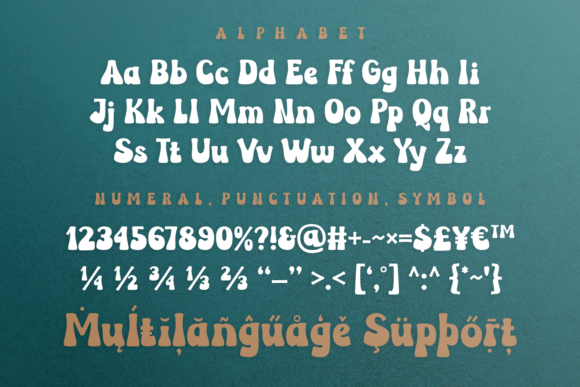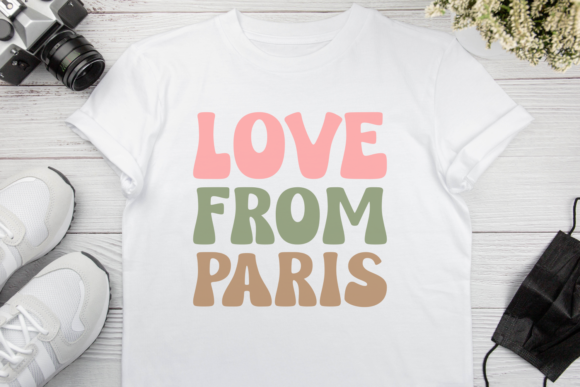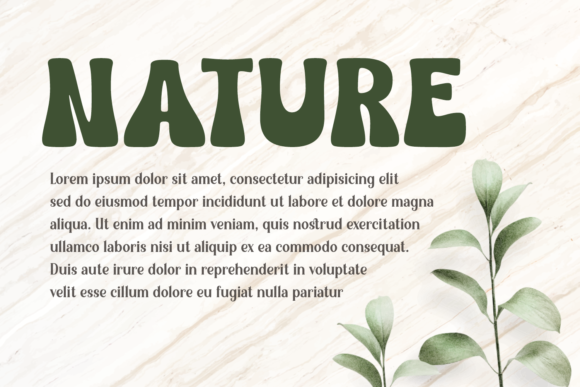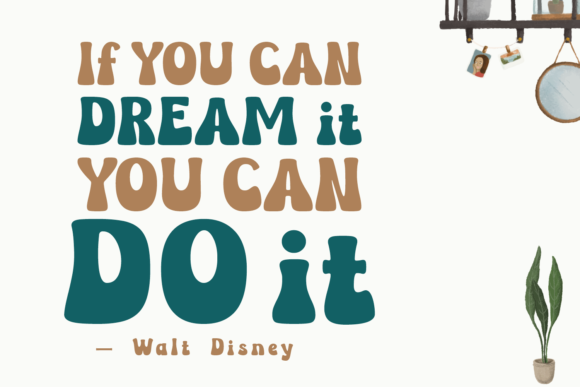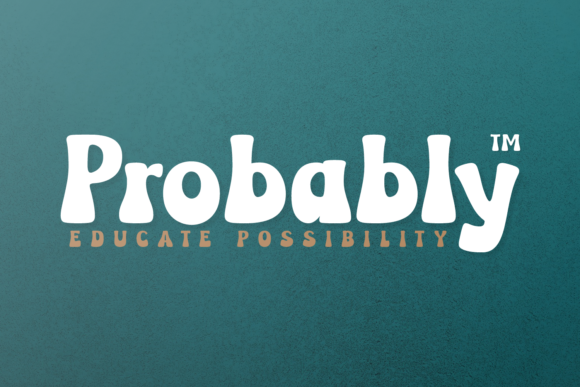
The Groovy Charm of Grace Day Font: A Designer’s Delight
I’ll never forget the time I was working on a project for a trendy boutique client, and I just couldn’t find the right font to capture their laid-back, bohemian vibe. I scoured the internet, tried out countless fonts, but nothing seemed quite right. That was until I stumbled upon Grace Day Font. It was like a ray of sunshine – instantly, I knew I’d found the perfect fit. If you’re a designer, crafter, or creative hobbyist looking for a cool and groovy display font, you’re in luck because today I’m excited to share my thoughts on this fantastic font.
An Honest Review of Grace Day Font
- ✨ Unique and quirky style that’s perfect for making a statement
- ✅ Highly versatile and adaptable to various design projects
- 💥 Excellent for headlines, titles, and short text passages
- 🎨 Beautifully crafted with attention to detail and a clear focus on aesthetics
While Grace Day Font is an amazing addition to any font library, there are a few things to keep in mind:
- 🤔 May not be the best choice for body text or long passages due to its display-focused design
- ⚠️ Some characters may not work well at very small font sizes
A Practical Guide to Using Grace Day Font
One of the best things about Grace Day Font is its support for OpenType features, glyphs, and stylistic alternates. These features allow you to customize your text and add a unique touch to your design. Some common features you might find in Grace Day Font include:
- Ligatures: combinations of letters that are replaced with a single glyph
- Swashes: decorative flourishes that can add a touch of elegance to your text
- Stylistic sets: alternative glyphs that can be used to create a different look or feel
The Backstory of Grace Day Font
Legend has it that the designer behind Grace Day Font was inspired by the carefree spirit of the 1960s. With a passion for typography and a love for vintage aesthetics, they set out to create a font that would capture the essence of a bygone era. The result is a font that’s equal parts groovy and sophisticated – perfect for designers looking to add a touch of whimsy to their work.
Q: What type of projects is Grace Day Font best suited for?
A: Grace Day Font is perfect for projects that require a bold, eye-catching font, such as posters, flyers, brochures, and social media graphics.
Q: Is Grace Day Font suitable for body text or long passages?
A: While Grace Day Font is a beautiful font, it’s primarily designed for display use. For body text or long passages, you may want to consider a font that’s specifically designed for readability.